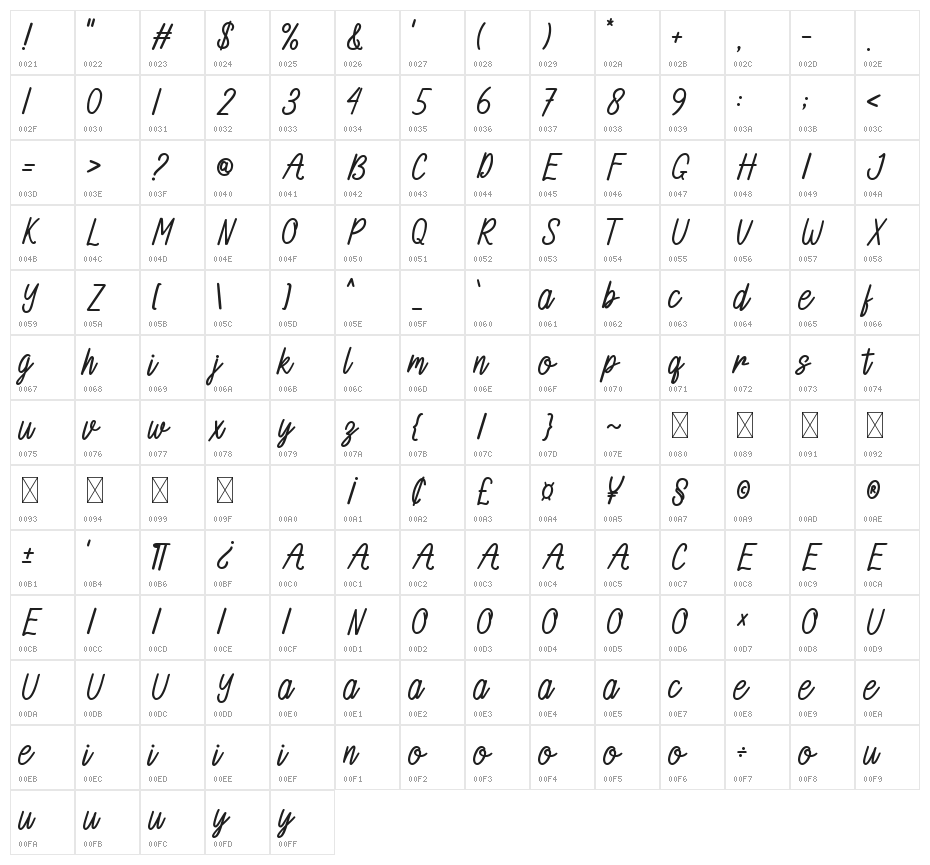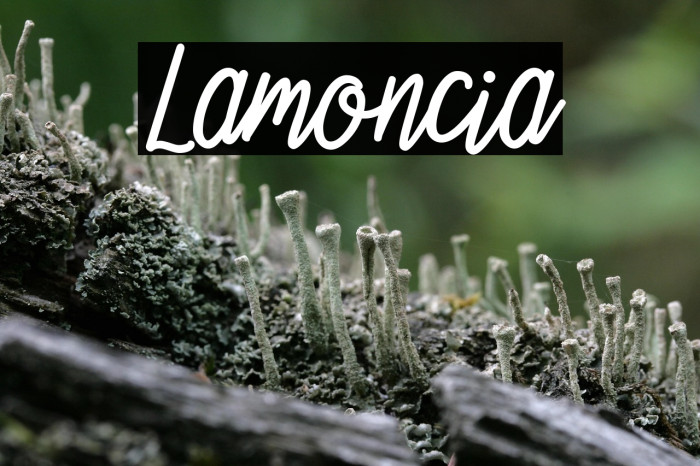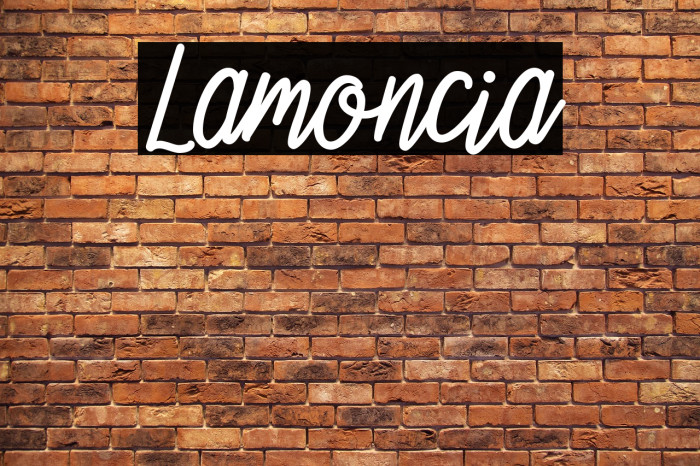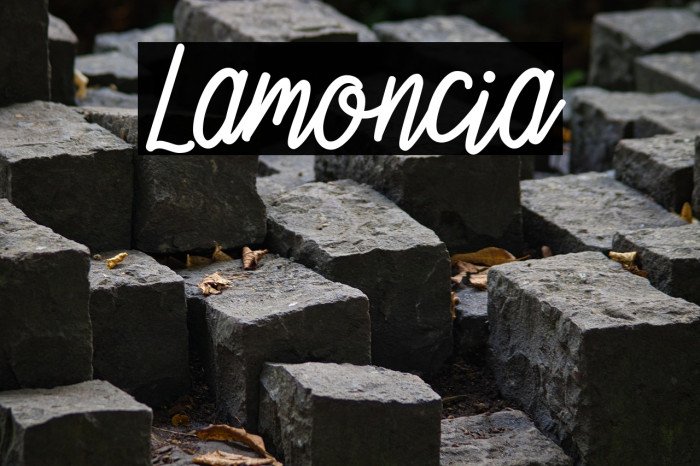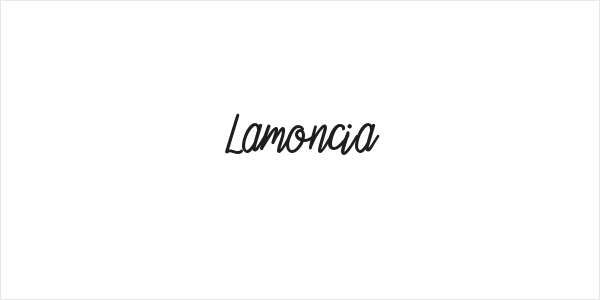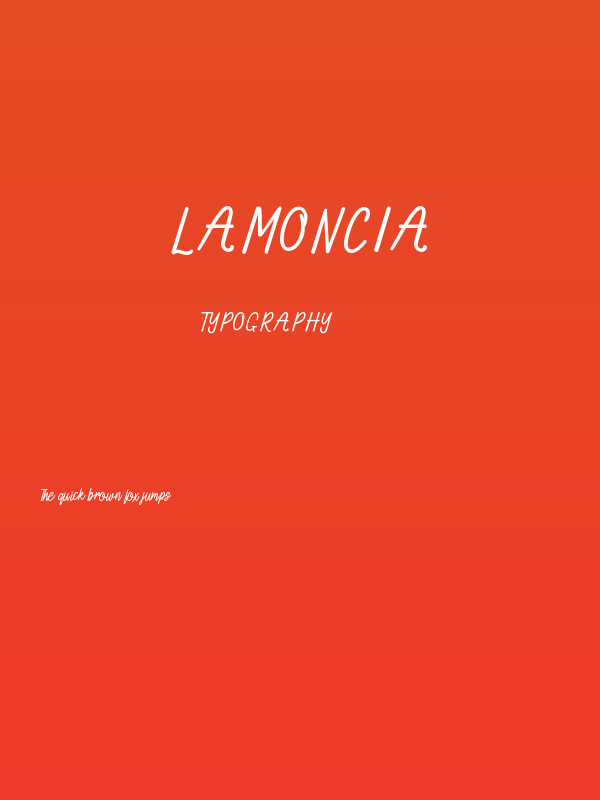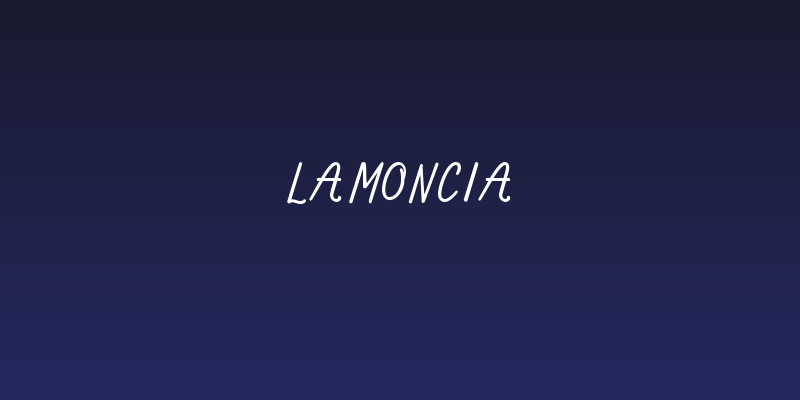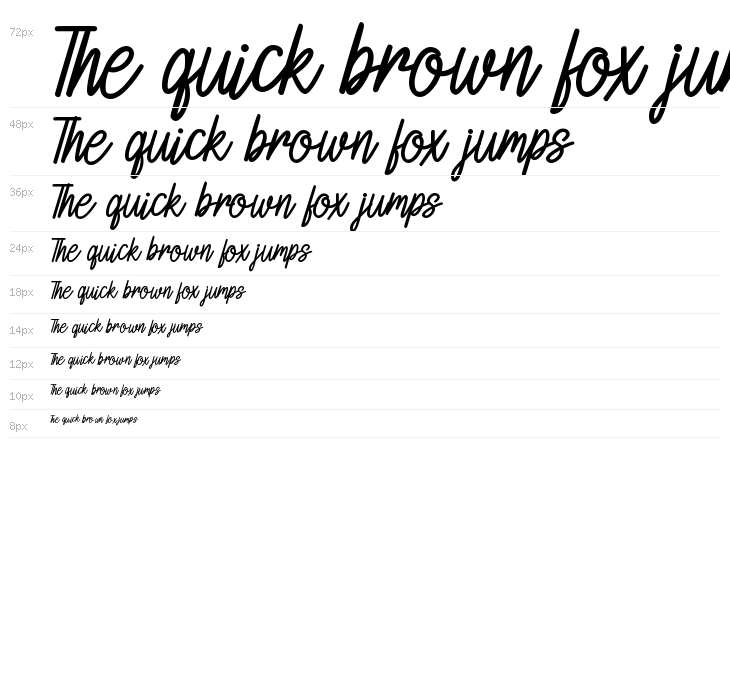
Lamoncia Font
Lamoncia Description
A casual, handwritten script font with a smooth flow and slight slant, giving it an informal and friendly appearance.
| Overall Style | Casual, Friendly |
| Use Case | Logos, Invitations, Personal projects |
| Proposed Projects | Greeting cards, invitations, personal branding. |